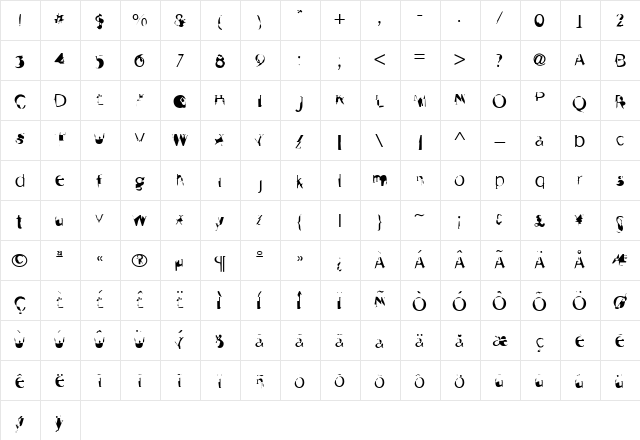
Semi Regular
Design Context for Semi Typeface
Semi is a composed and adaptable typeface that performs quietly and consistently across a wide range of design contexts.